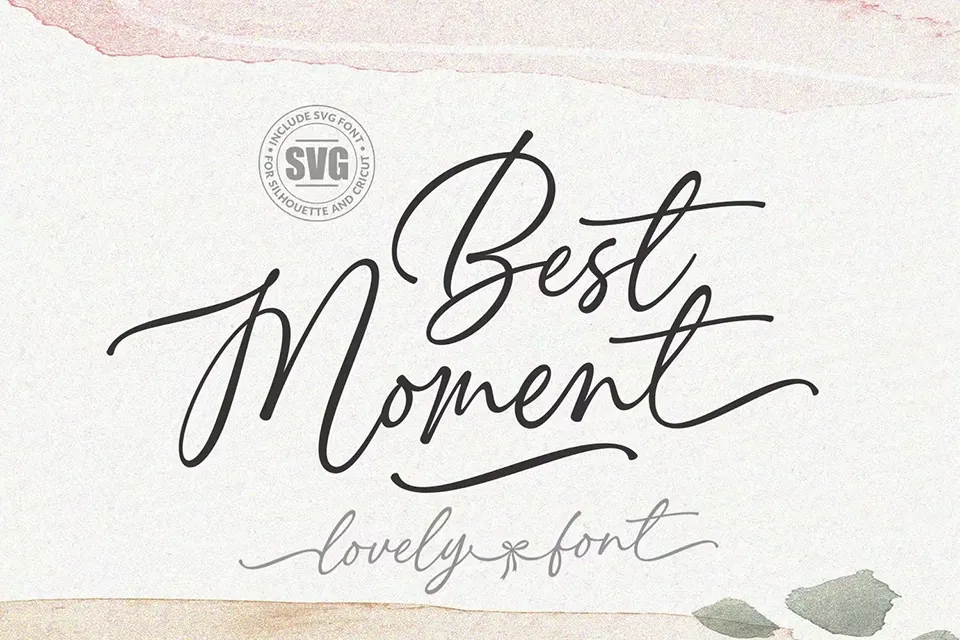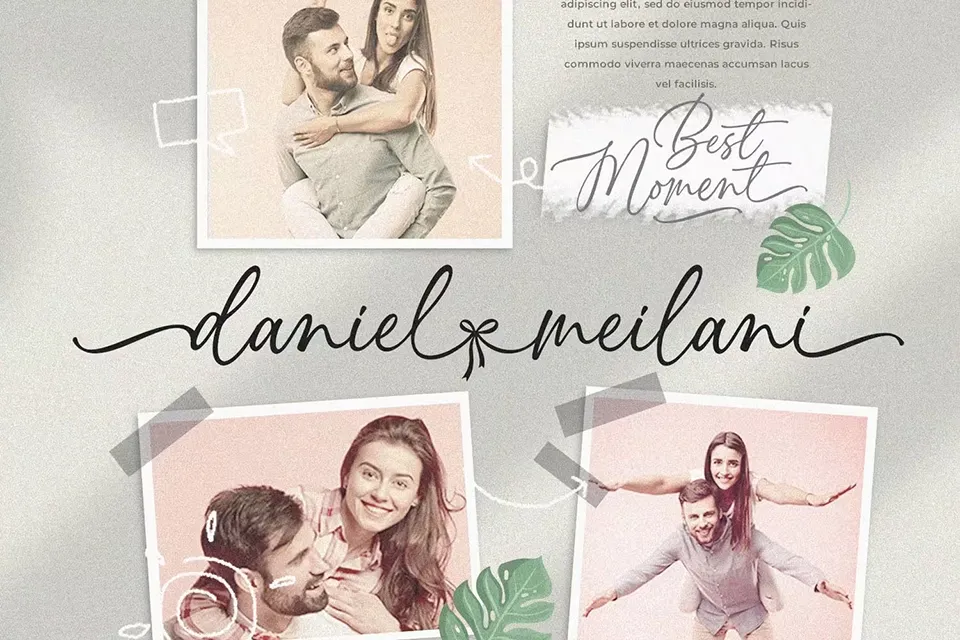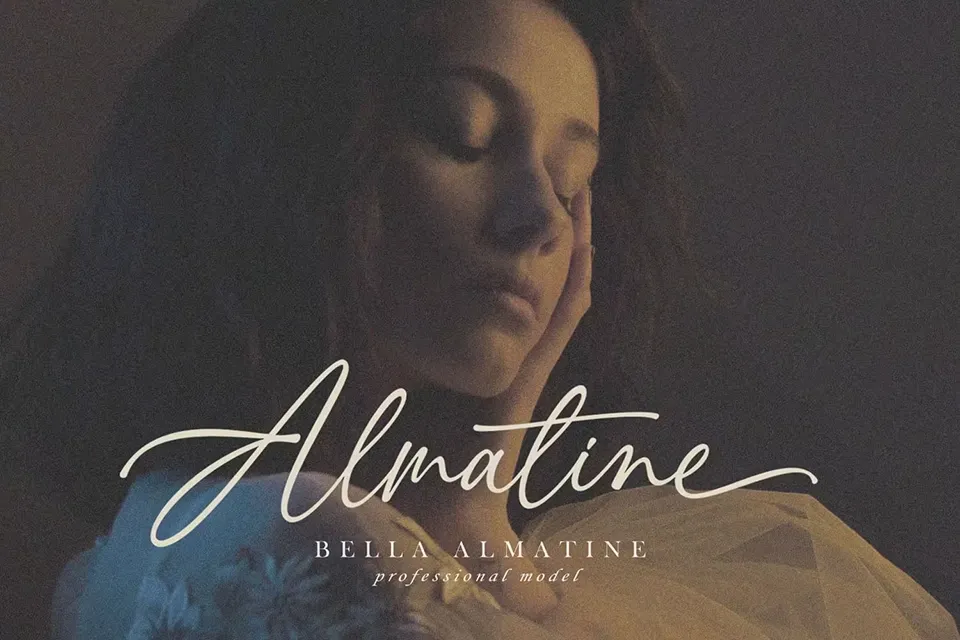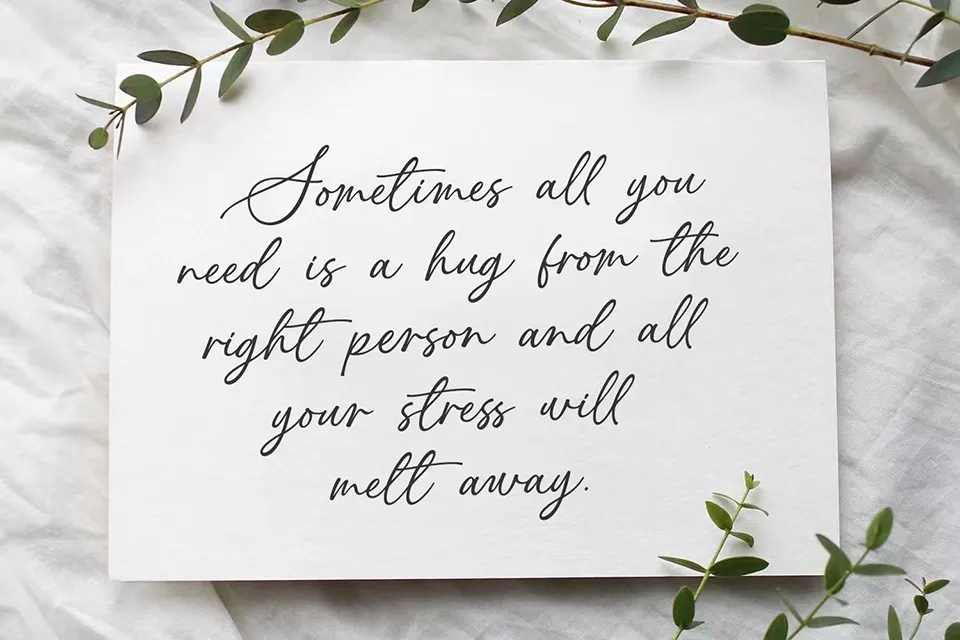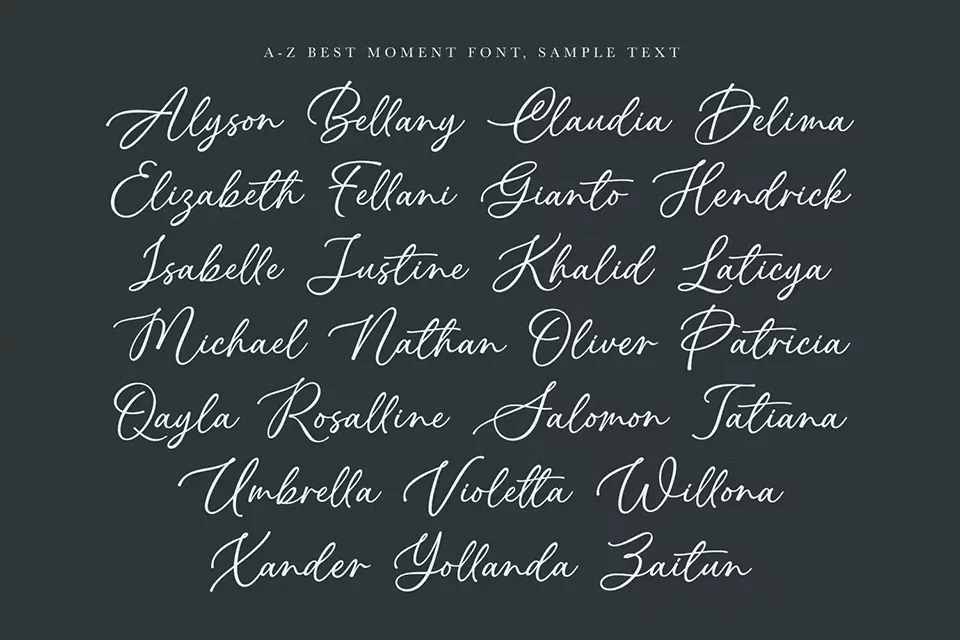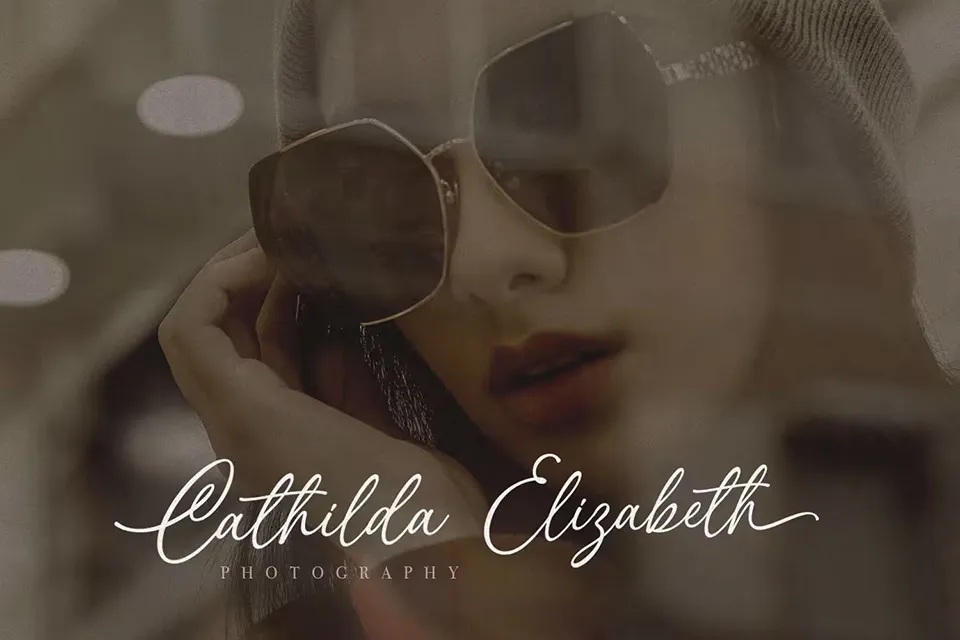
Best Moment Font
Best Moment Font is a chic and lovely calligraphy script, described by a natural handwritten style with a romantic touch. Perfect for wedding invitations, greeting cards, quotes, logos, and any project that needs an elegant, handwritten flair.